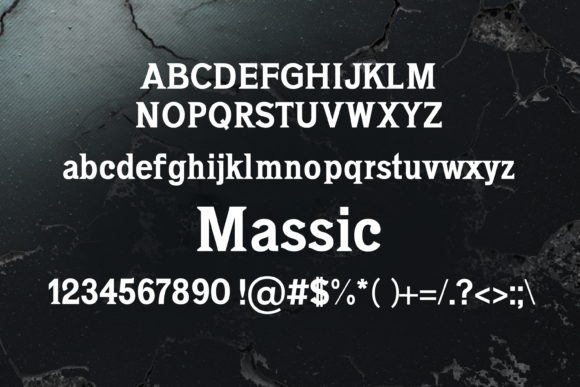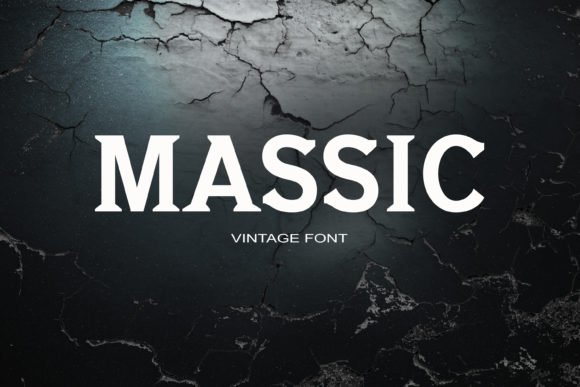
Introduction to Massic Font
Massic is a sweet and cool serif font with a unique style.
Get inspired by its unique charm .
Key Features of Massic Font
Why Choose Massic Font?
Massic Font offers exceptional quality and versatility, making it a valuable addition to your design toolkit. Whether you’re creating for personal projects or commercial use, Massic Font delivers professional results.